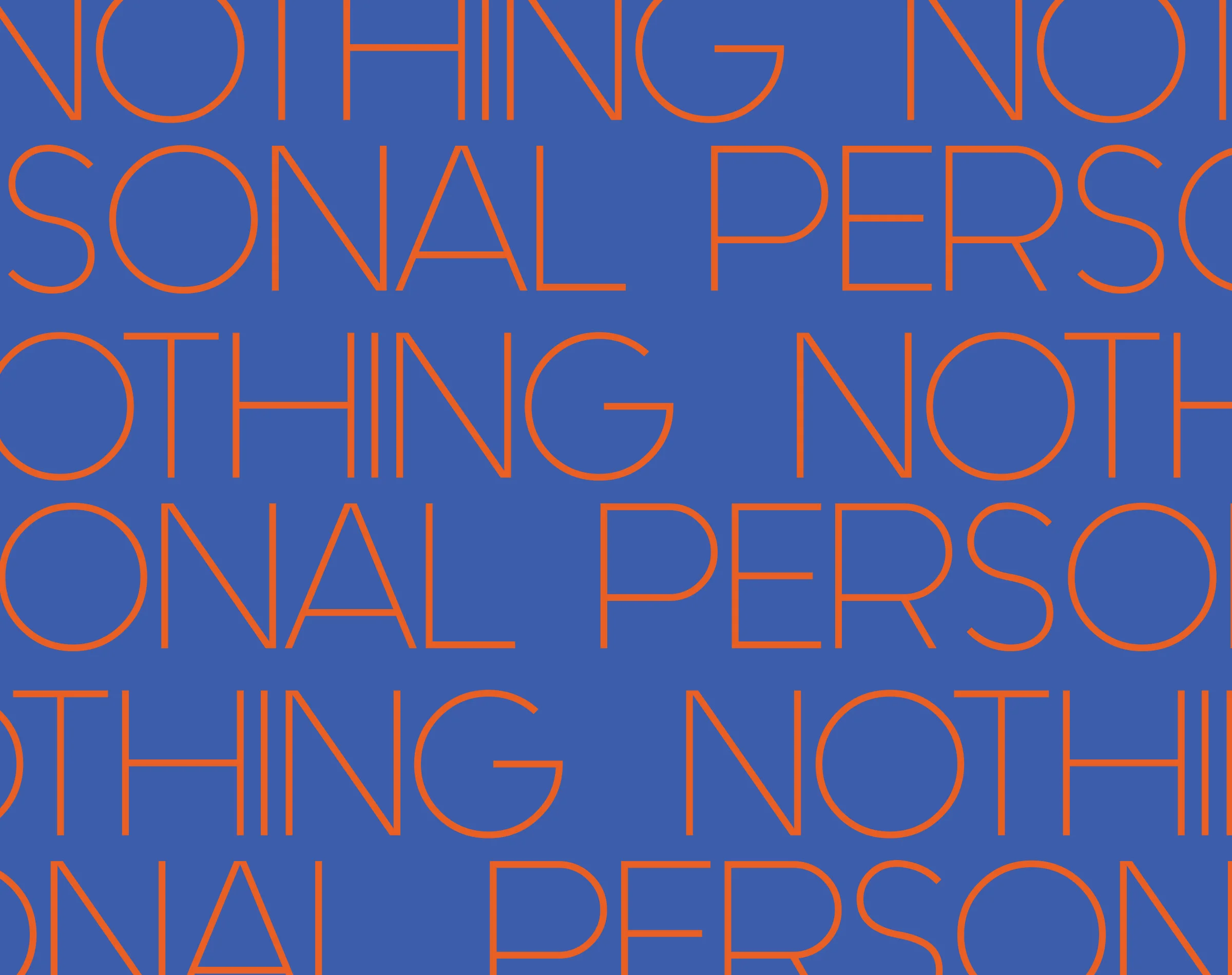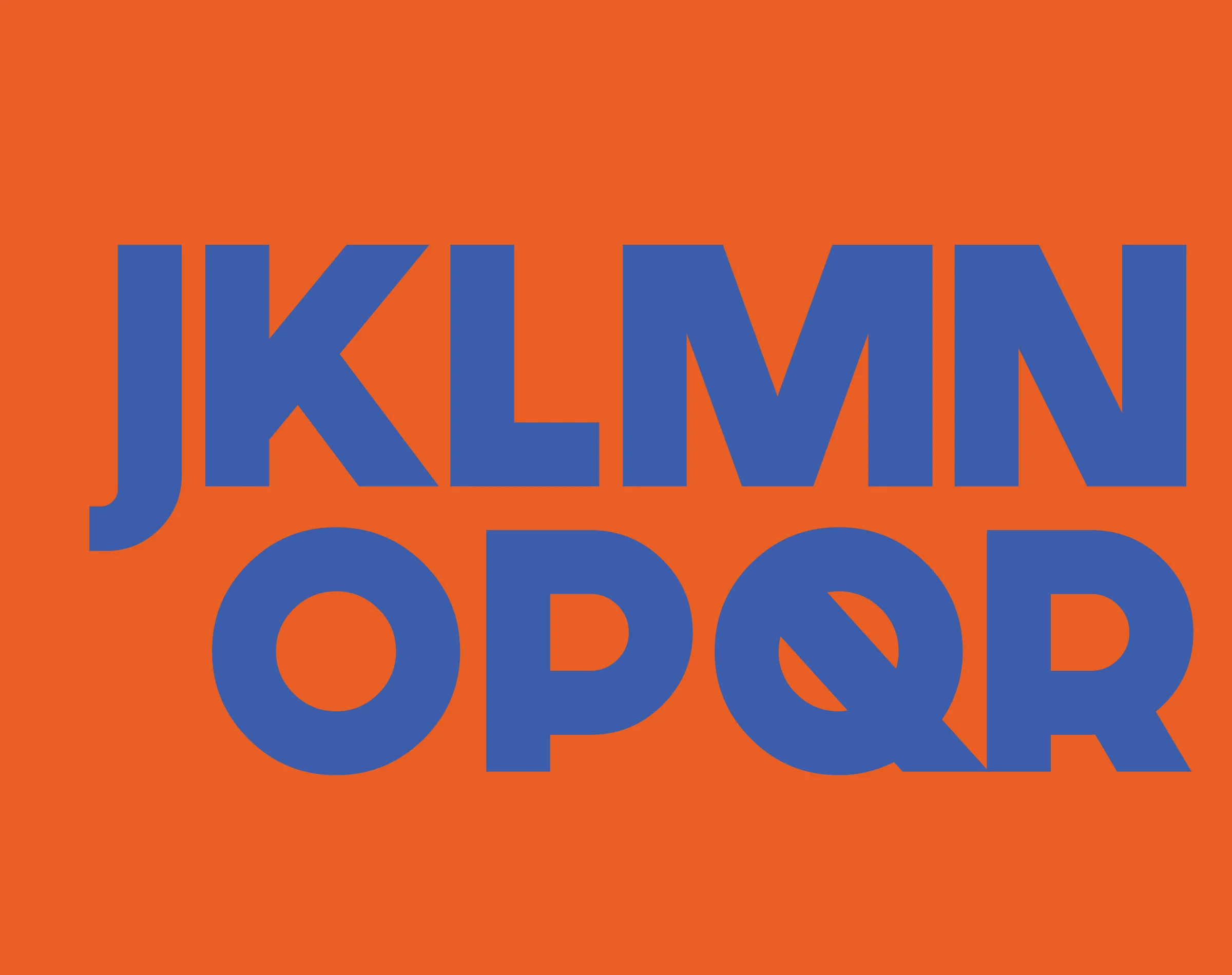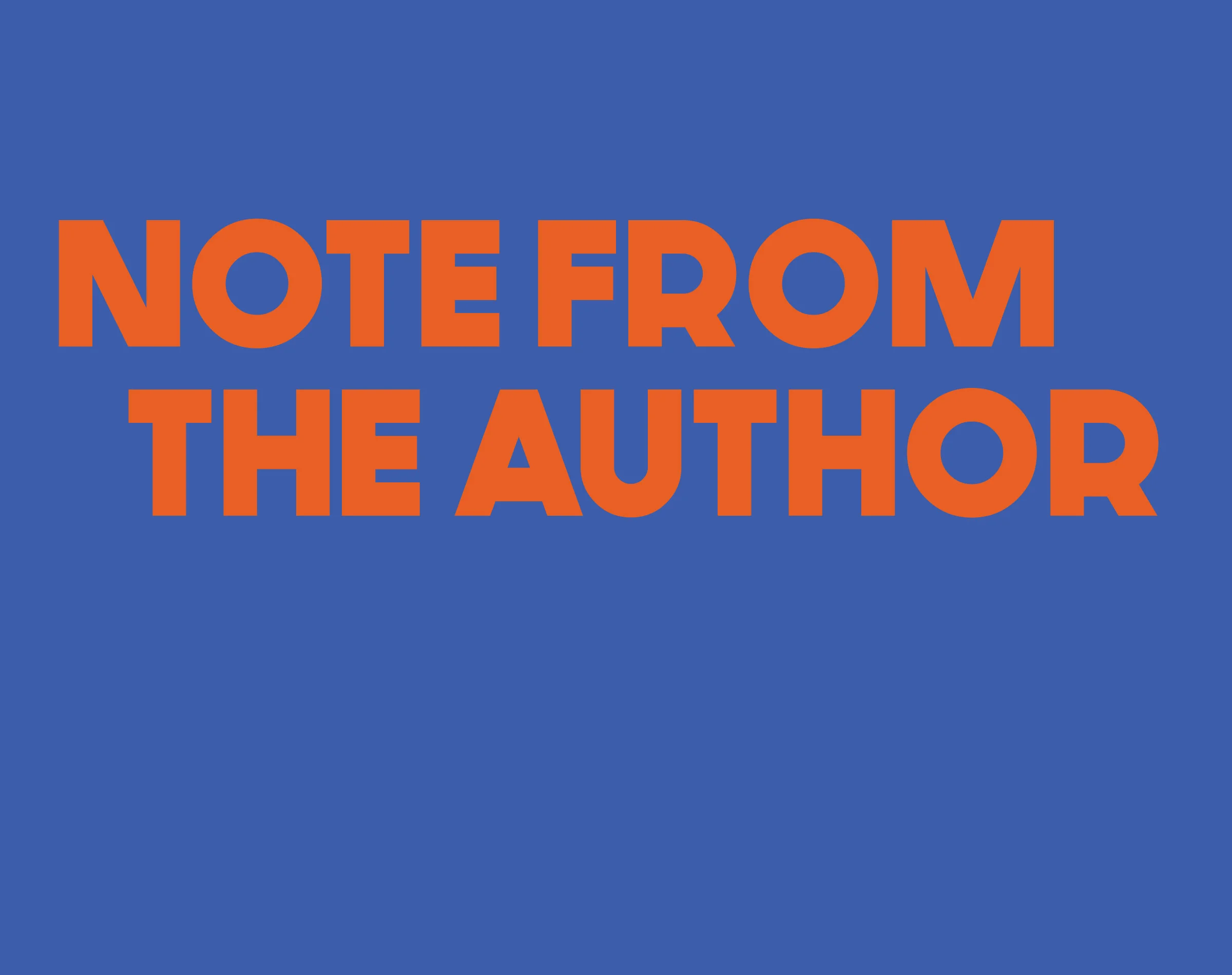
Generica
Generica is a FREE workhorse sans-serif in two weights — one super light, one super chunky — made to help you cross projects off the list and move on. With over 600k downloads on DaFont.com, it is happiest doing the quiet jobs: titles, logos, packaging, and large type that needs to just work. Both weights are absolutely free for personal and commercial use.